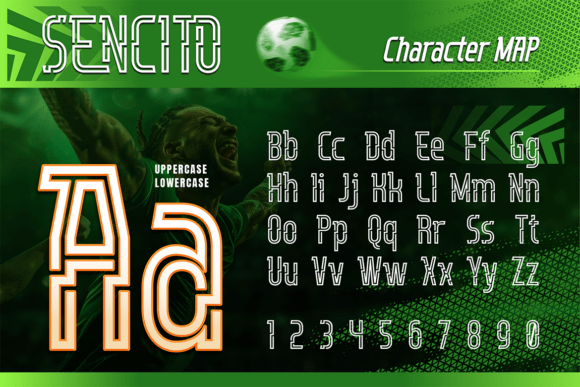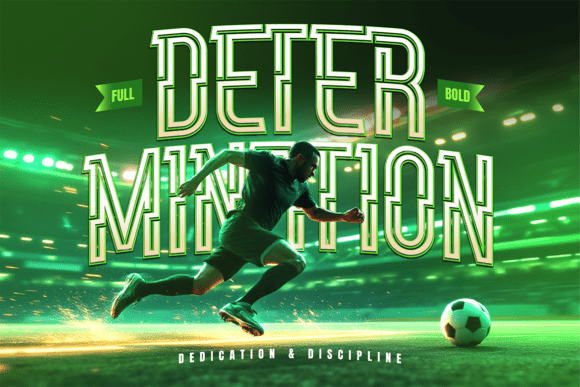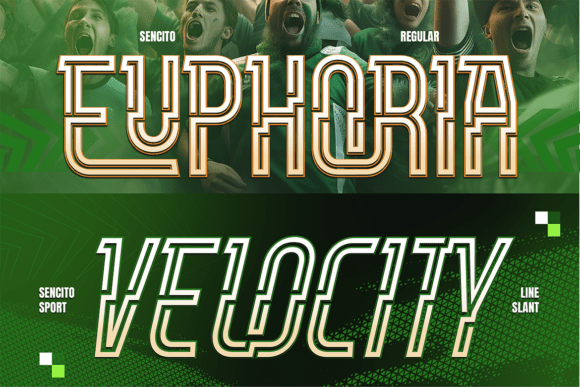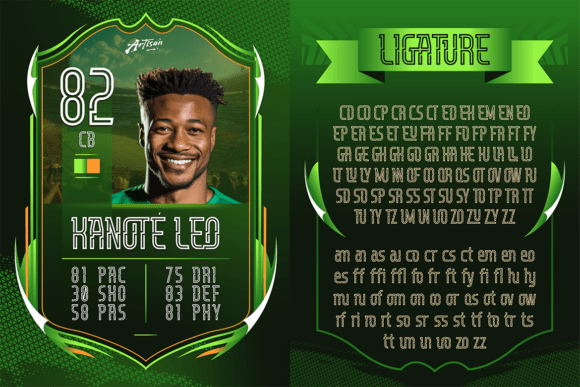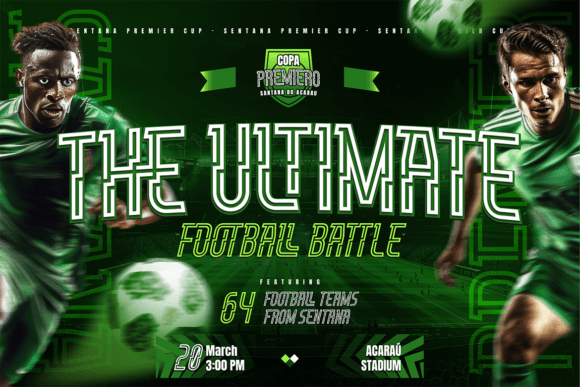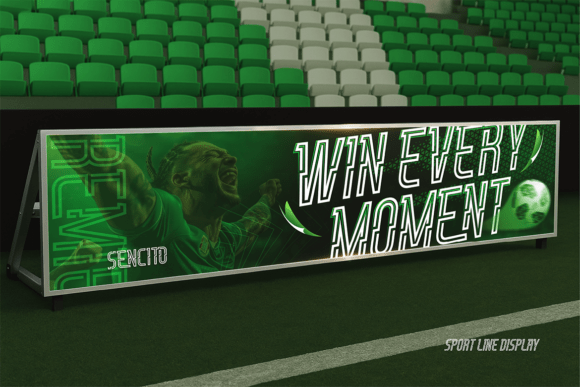
Introduction to Sencito Font
Sencito is a modern line display font designed to deliver a bold and confident visual impact.
Built with clean outlines and structured letterforms, this typeface offers a strong presence while maintaining clarity and balance across every character Sencito features a distinctive layered line style that makes it perfect for standout headlines and eye-catching typography.